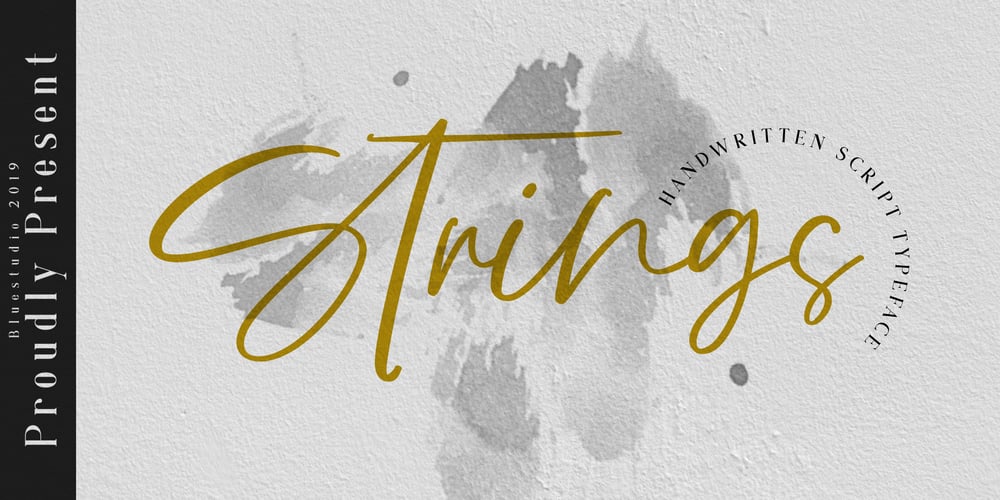
Strings Font Family was designed by Winarno and published by Bluestudio. Strings contains 1 styles and family package options. Strings is a handwritten script font that is suitable for all your design project needs such as logo design, branding, covers, posters, magazines, wedding invitations, greeting cards, quotes and more. Multilingual support – spread your message globally AÀÁÂÃÄÅCÇDÐEÈÉÌÍÎÏIÌÍÎÏNÑOØÒÓÔÕÖUÙÜÚÛWYÝŸÆßÞþ Encoded PUA Characters Fonts are fully accessible without additional design software. Happy designing!